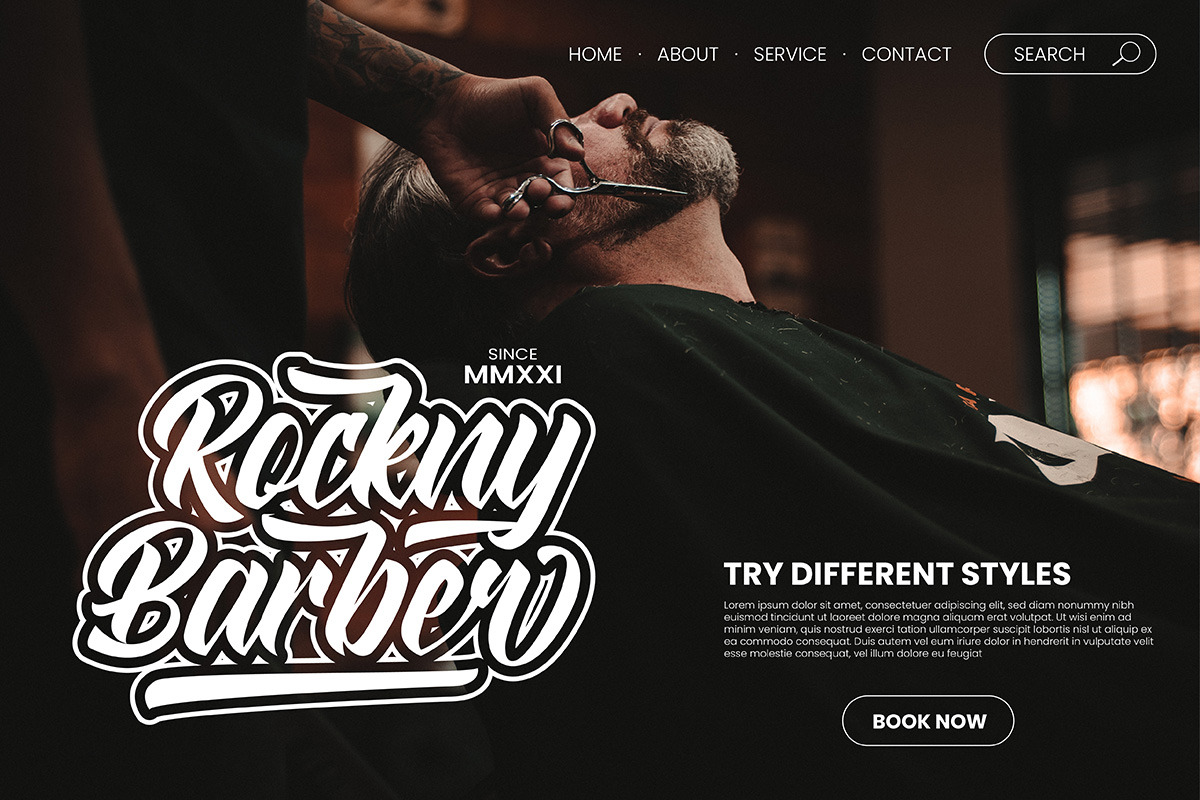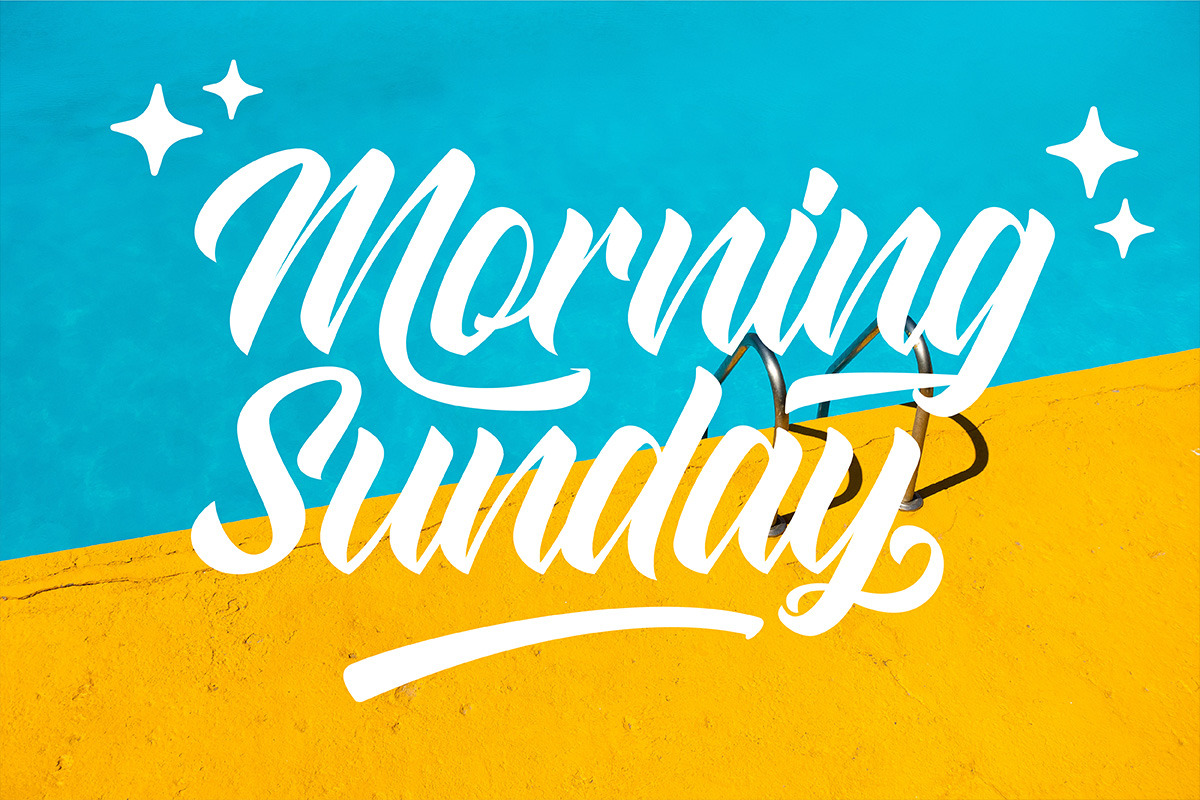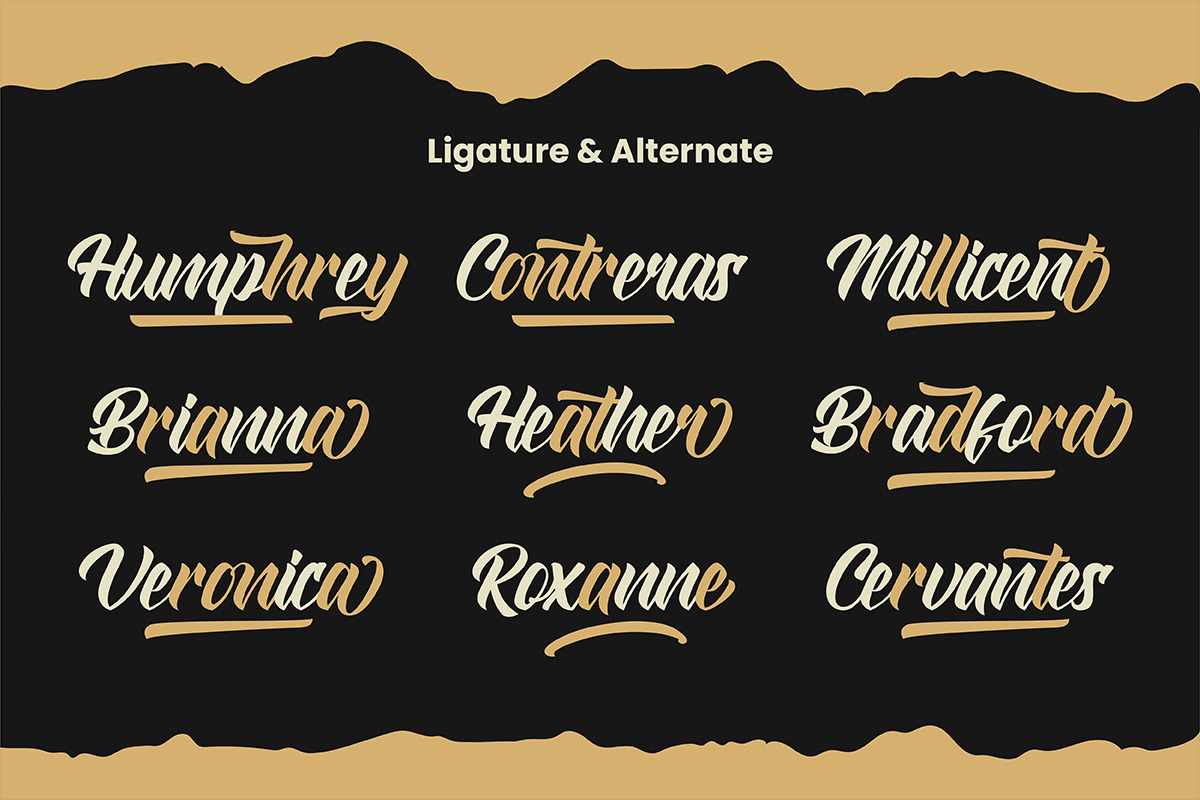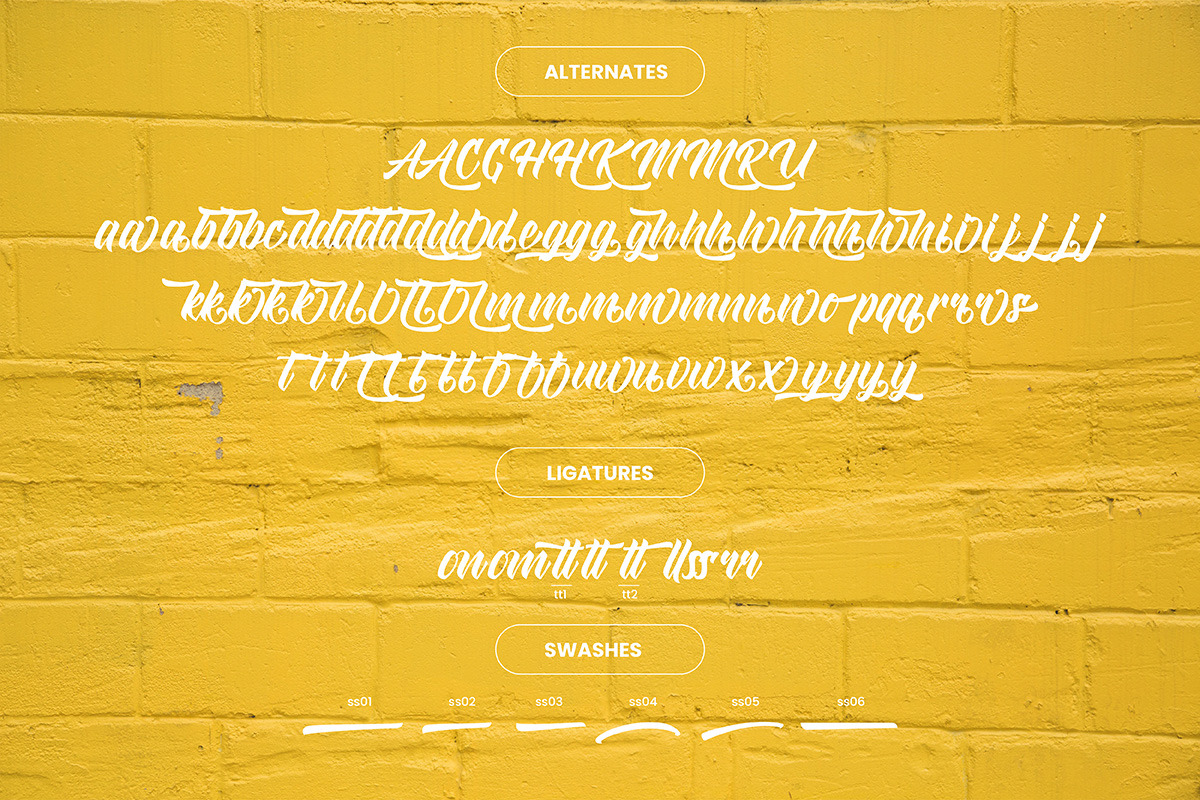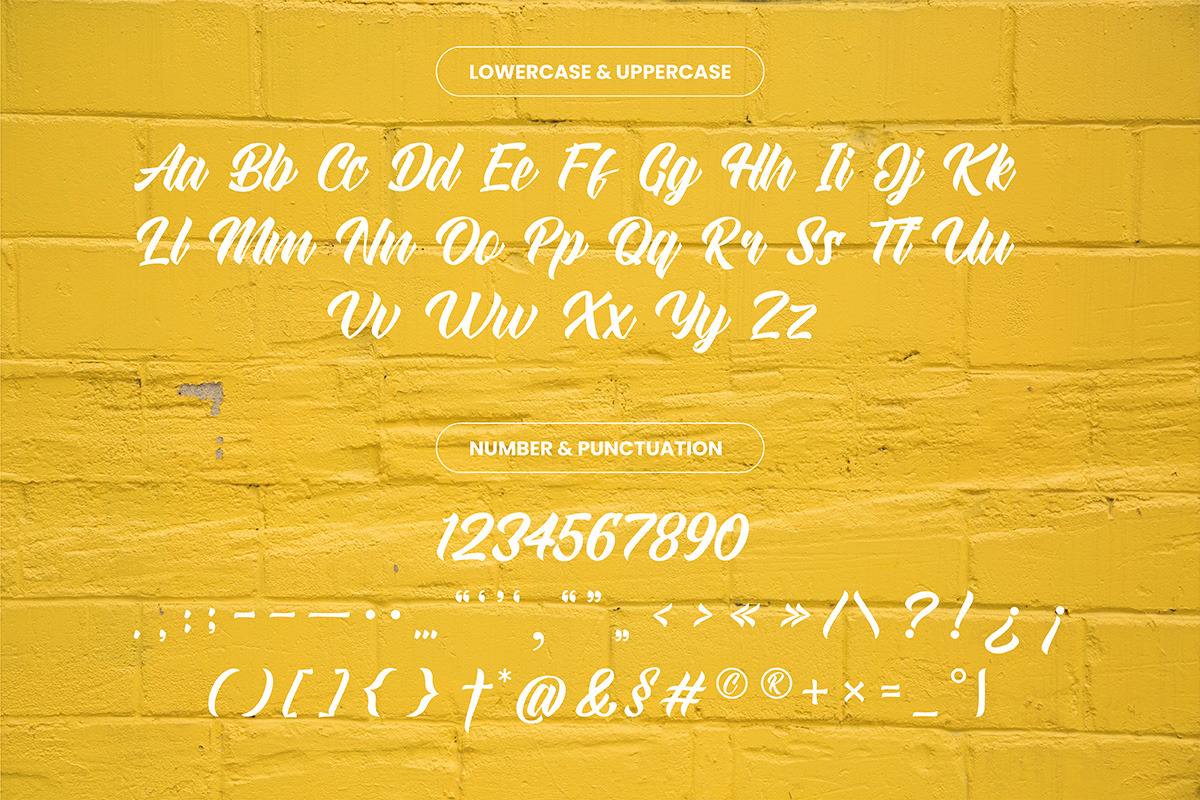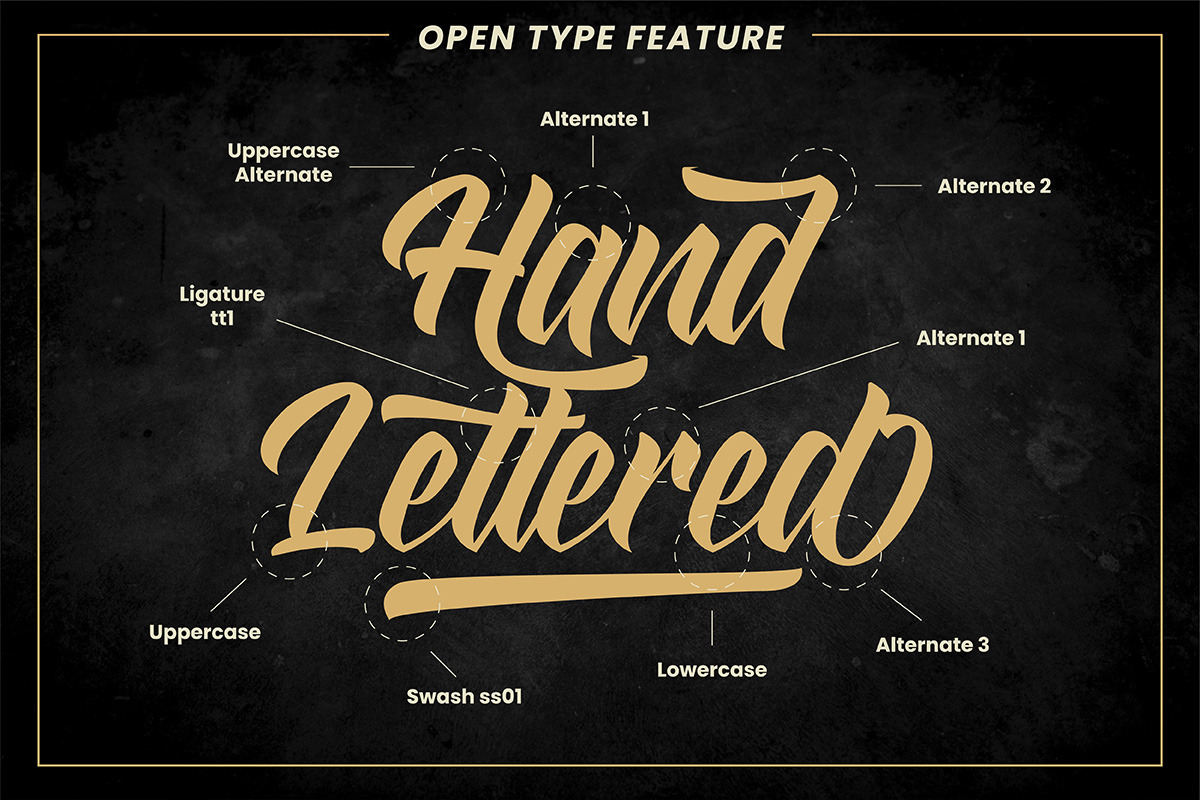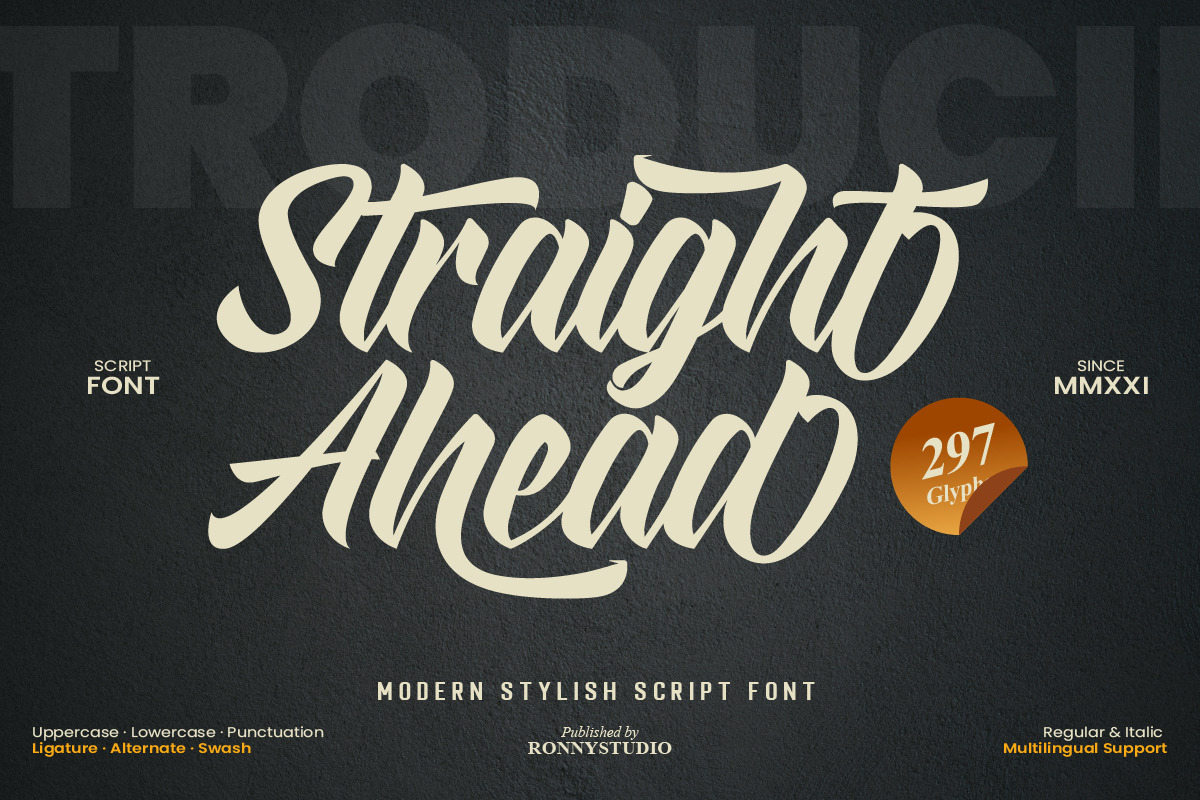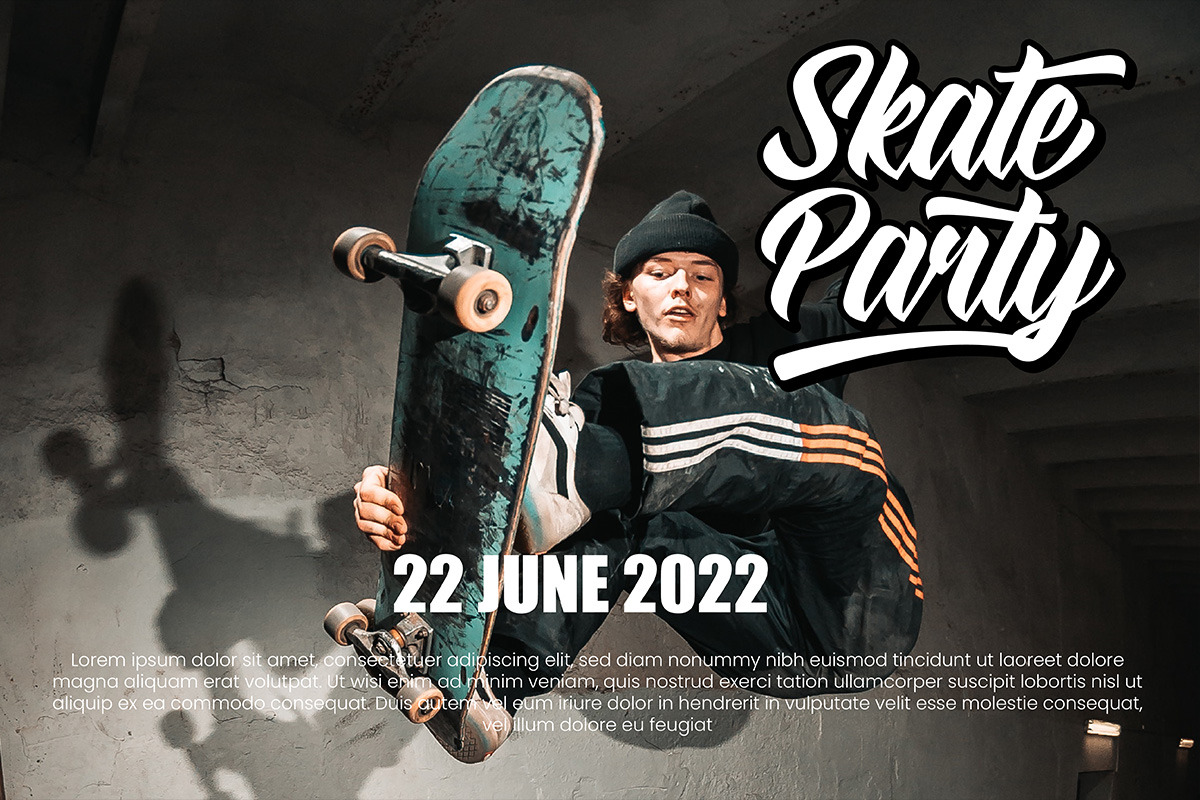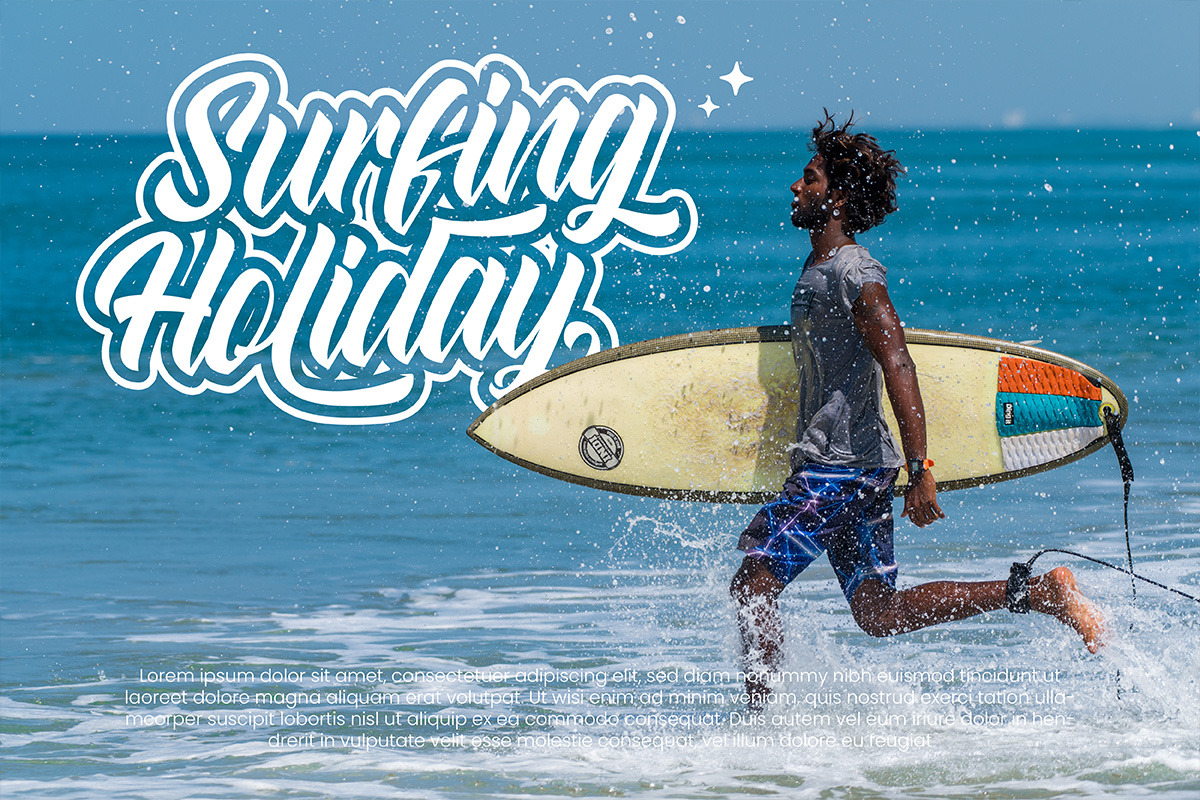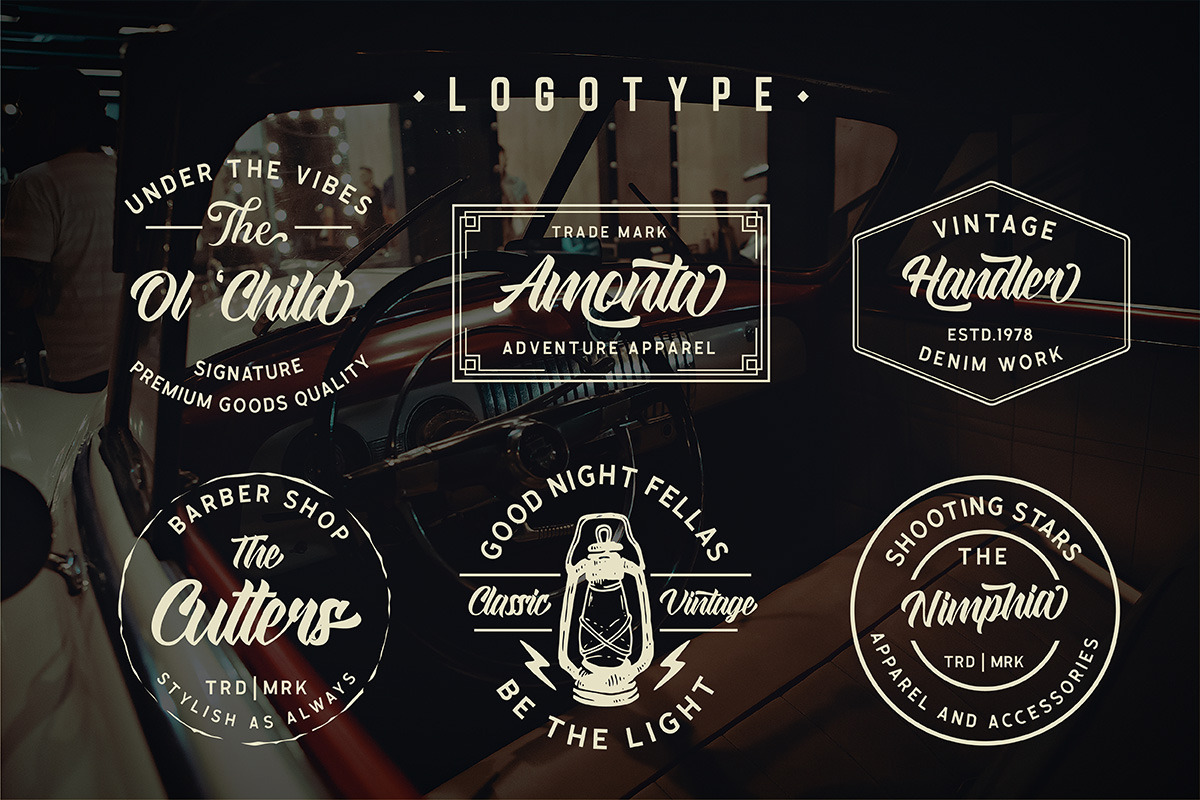
Straight Ahead Modern Script Font
Straight Ahead is a dazzling handwritten font. With a modern style, this versatile script font has a wide spectrum of applications such as for branding, logotype, and more. Straight Ahead is PUA coded which means you can access all the glyphs and sweeps easily! It is suitable for branding, Poster Design, Event, logotype, product packaging, decoration, t-shirts, poster labels, etc.
2 Style Font :
- Italic
Straight Ahead Features :
- Wash